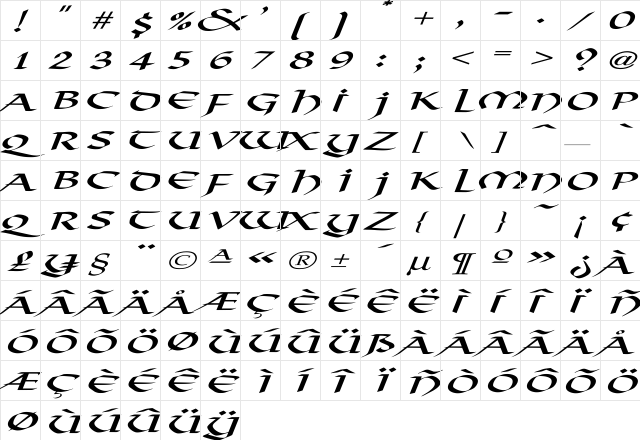
Viking-Normal Ex Italic Regular
Design Context for Viking-Normal Ex Italic Typeface
Viking-Normal Ex Italic is a composed and adaptable typeface that performs quietly and consistently across a wide range of design contexts. The slanted form adds forward momentum and visual energy.
Pro Tip: Try Viking-Normal Ex Italic for annotation and caption copy alongside an upright companion — the contrast in angle creates a dynamic but ordered typographic system.